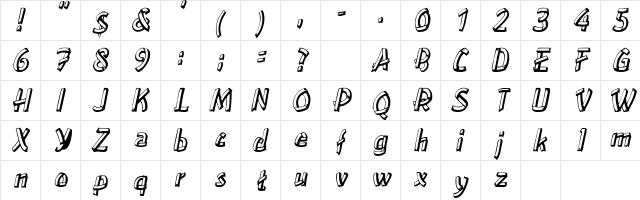
Treehouse Oblique
Design Context for Treehouse Typeface
Treehouse is a composed and adaptable typeface that performs quietly and consistently across a wide range of design contexts. The dynamic lean of this cut emphasises speed and emphasis in any layout.
Pro Tip: Try Treehouse for annotation and caption copy alongside an upright companion — the contrast in angle creates a dynamic but ordered typographic system.